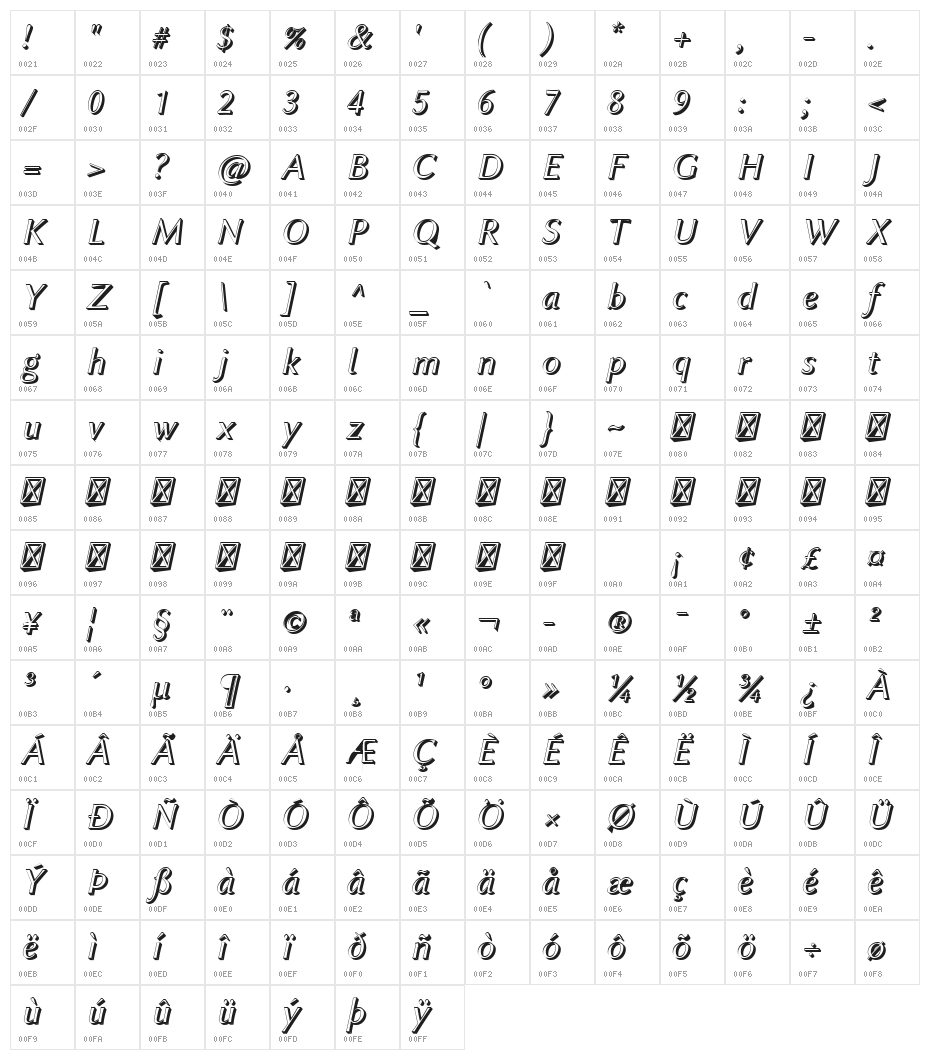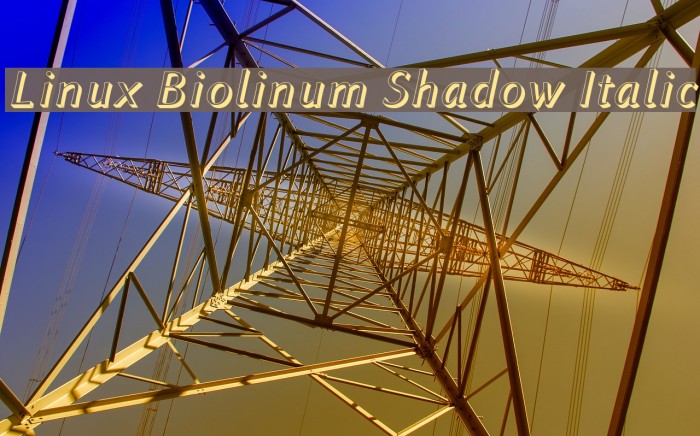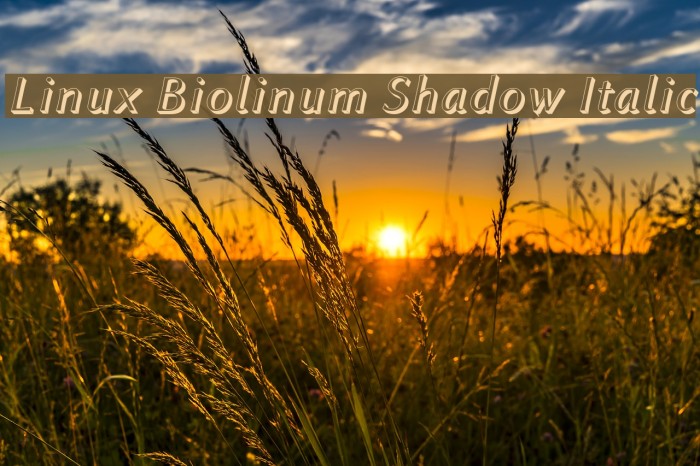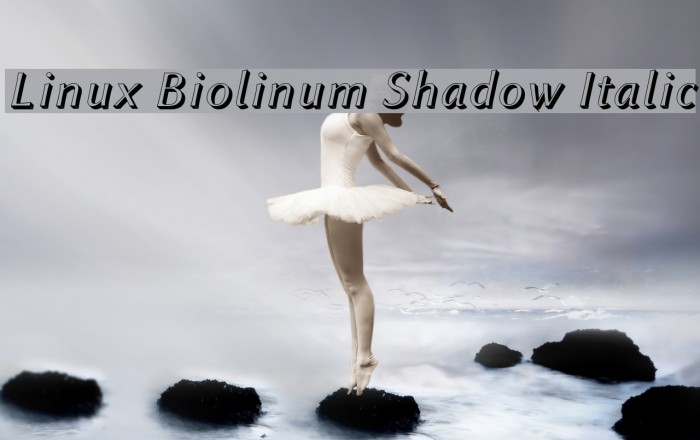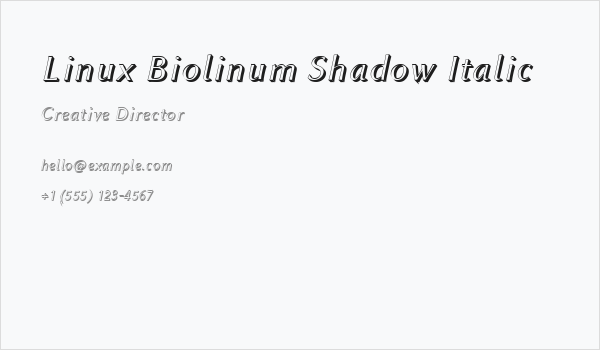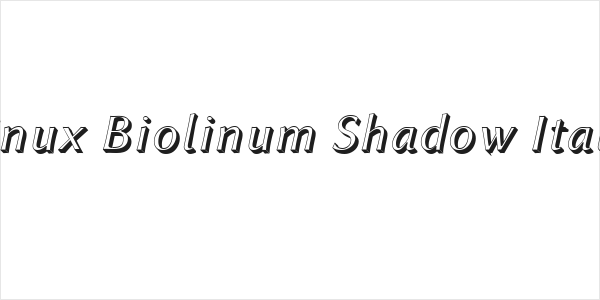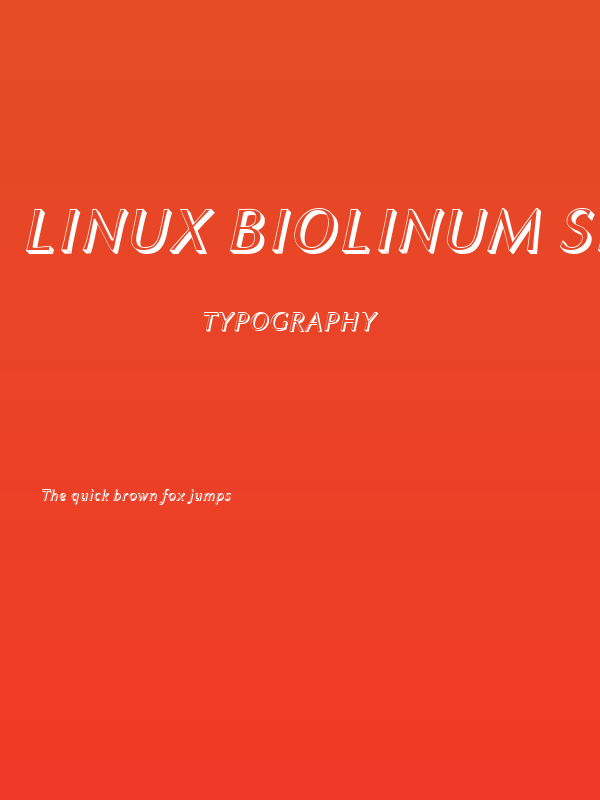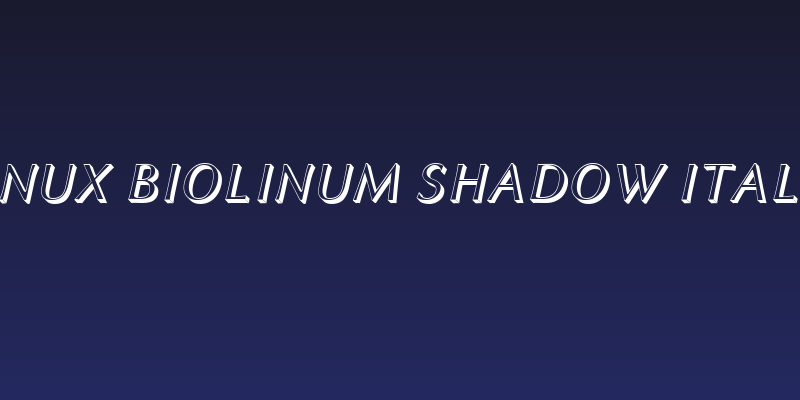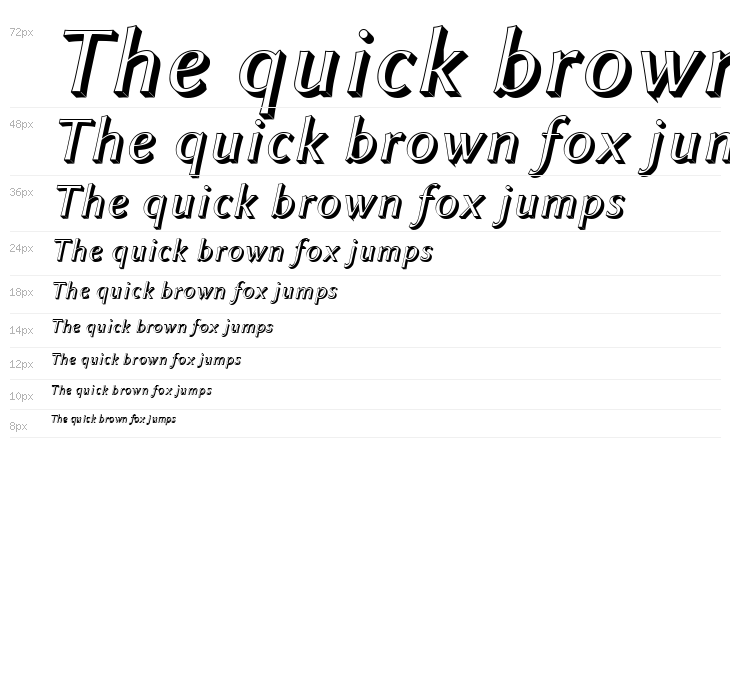
Linux Biolinum Shadow Italic Font
Linux Biolinum Shadow Italic Description
This font features a distinctive shadow effect that gives it a three-dimensional appearance, adding depth and character to the text. The italic style adds a sense of elegance and movement, making it suitable for dynamic and creative designs. The characters are well-defined with a moderate stroke contrast, enhancing readability while maintaining a stylish flair. The font includes a full set of uppercase and lowercase letters, numerals, and a variety of special characters, making it versatile for various applications.
| Proposed Projects | Ideal for creative projects such as posters, book covers, and branding materials where a touch of elegance and depth is desired. |